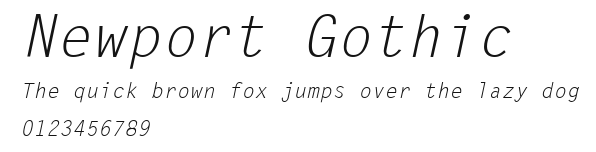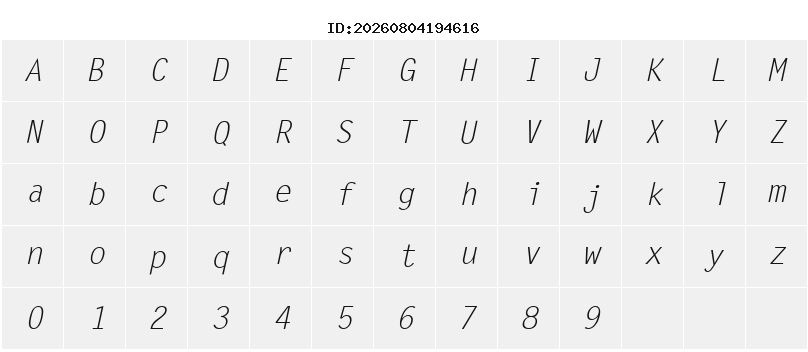
• Font Name: Newport Gothic
• Full Font Name: Newport Gothic Italic
About Newport Gothic.ttf
Newport Gothic.ttf is a modern, elegant sans-serif font designed for ultimate readability and visual harmony. Perfect for branding, headlines, web design, and print materials.